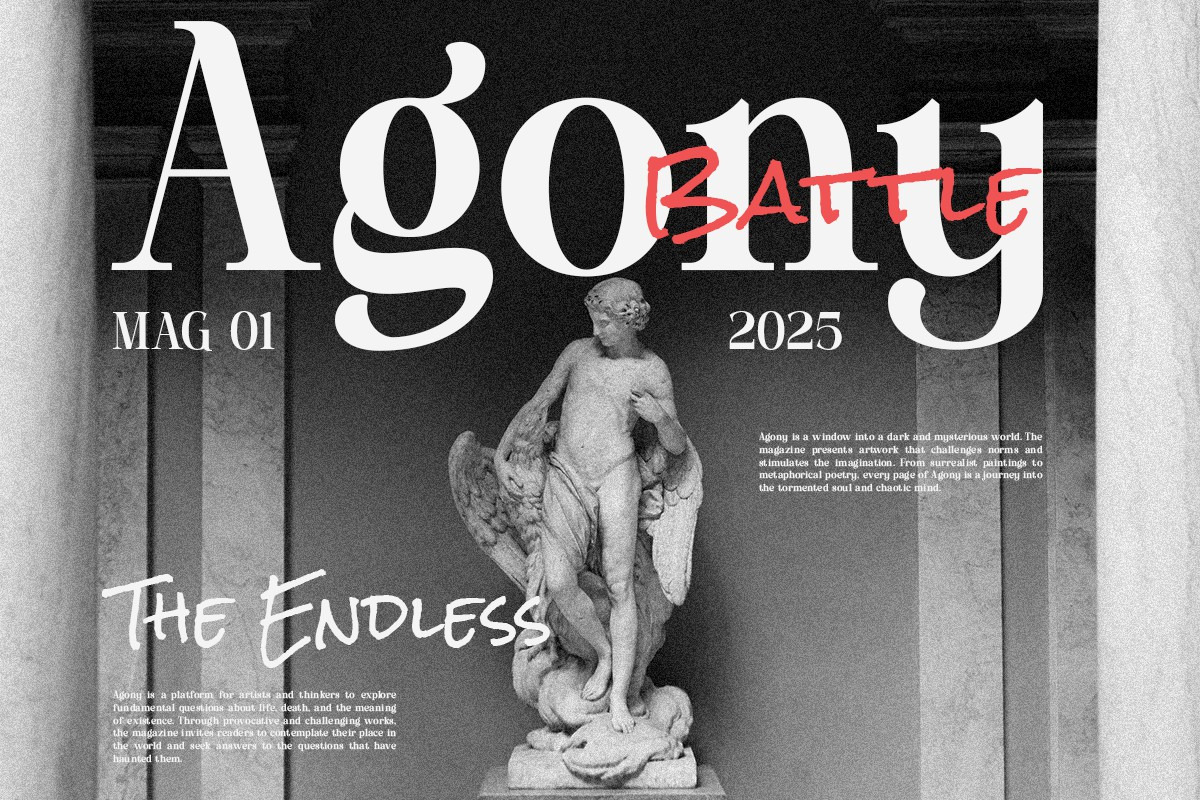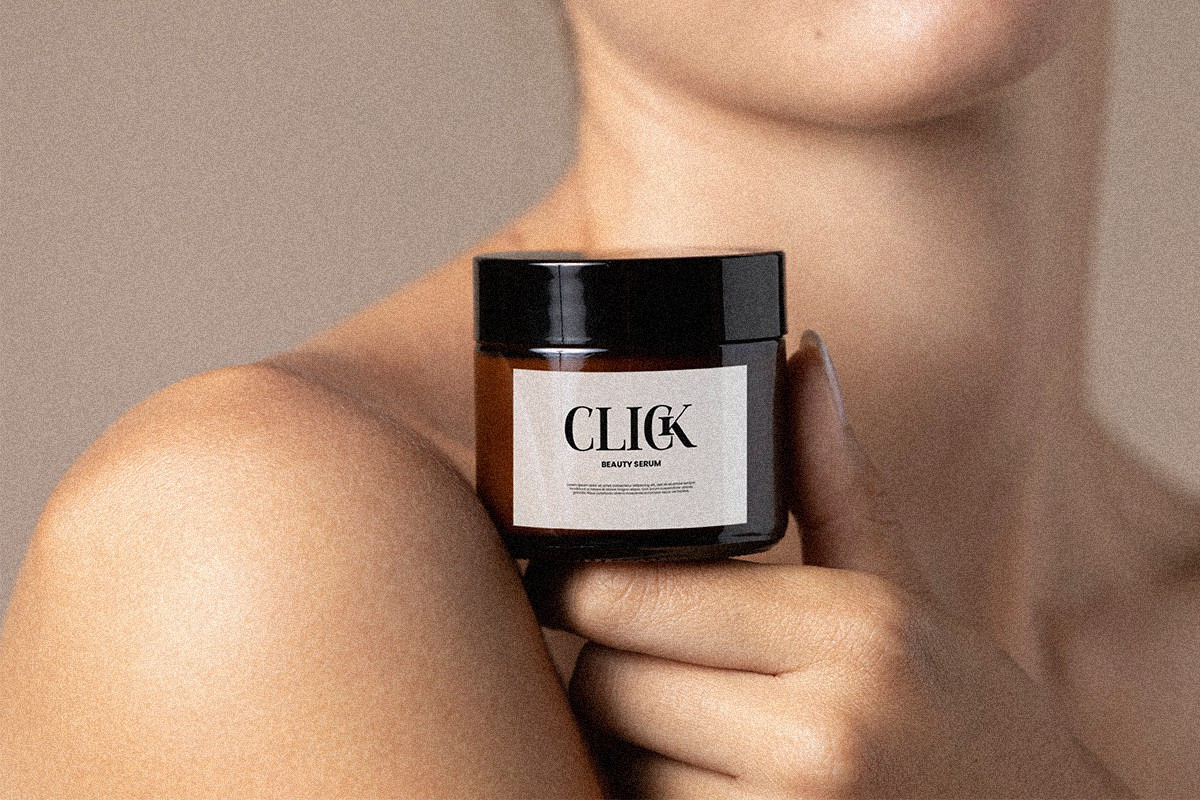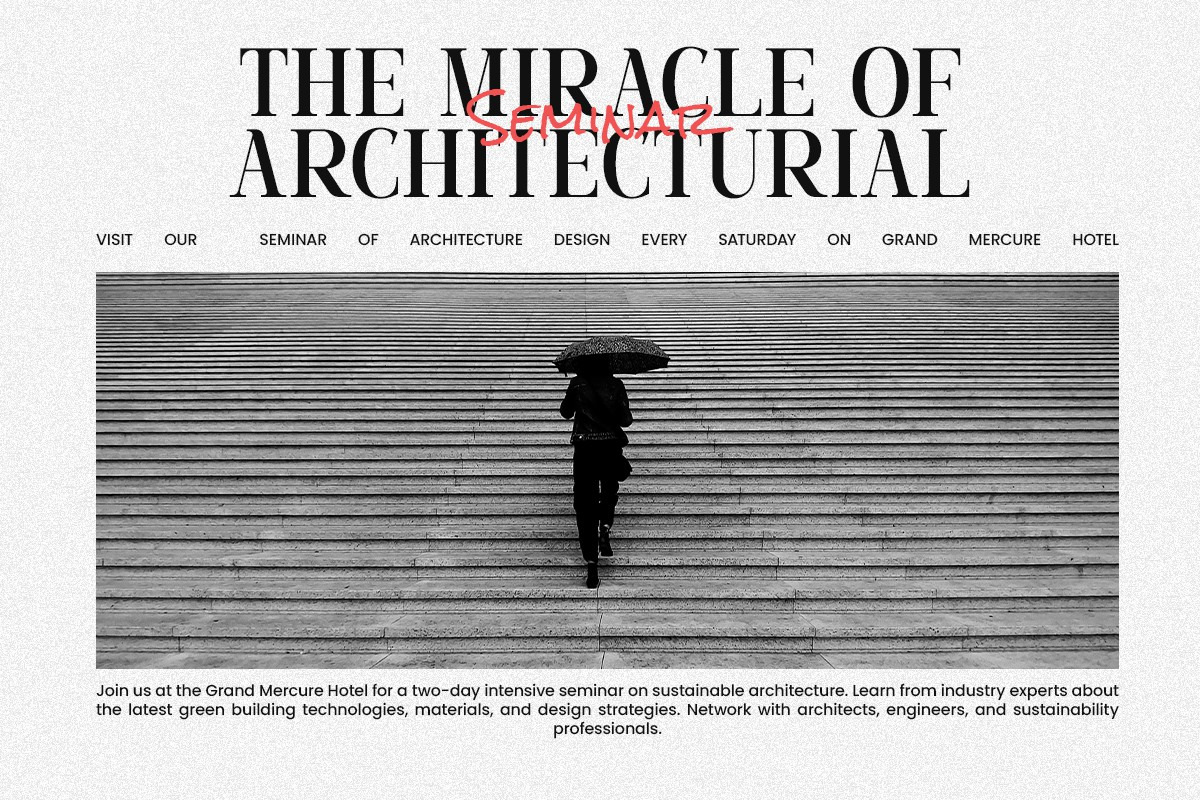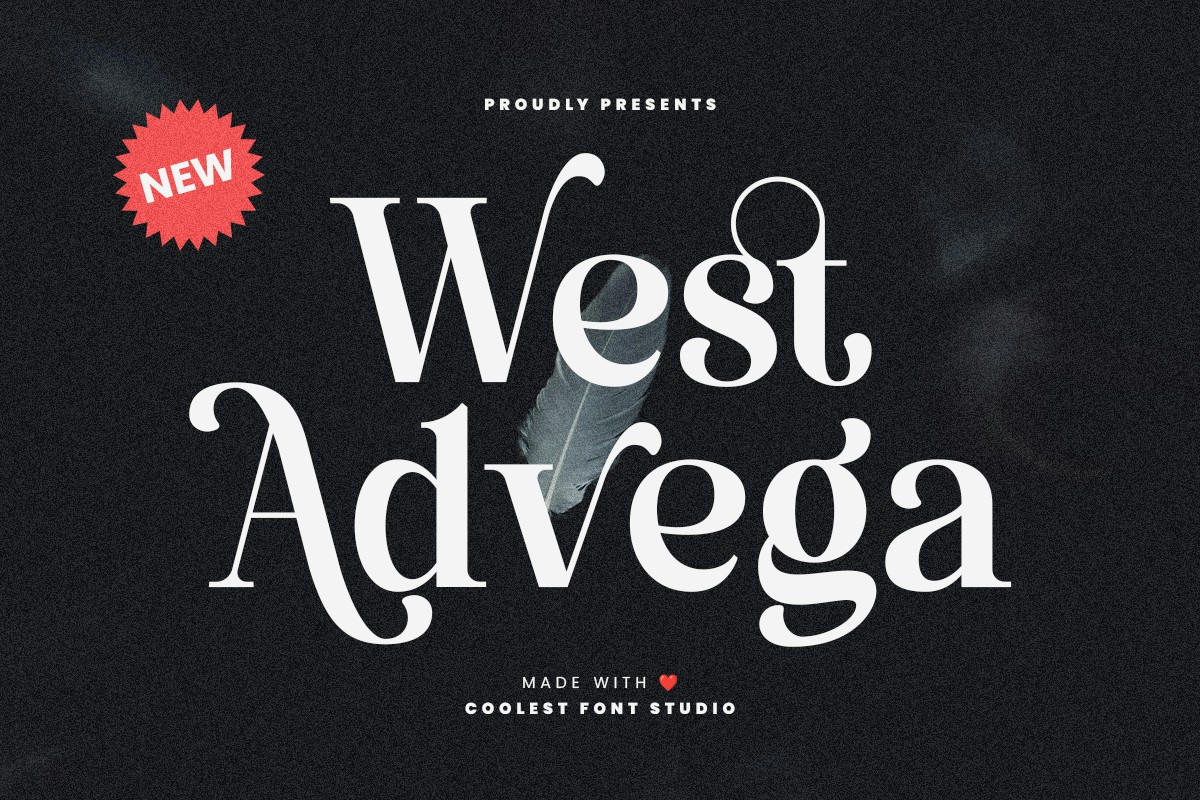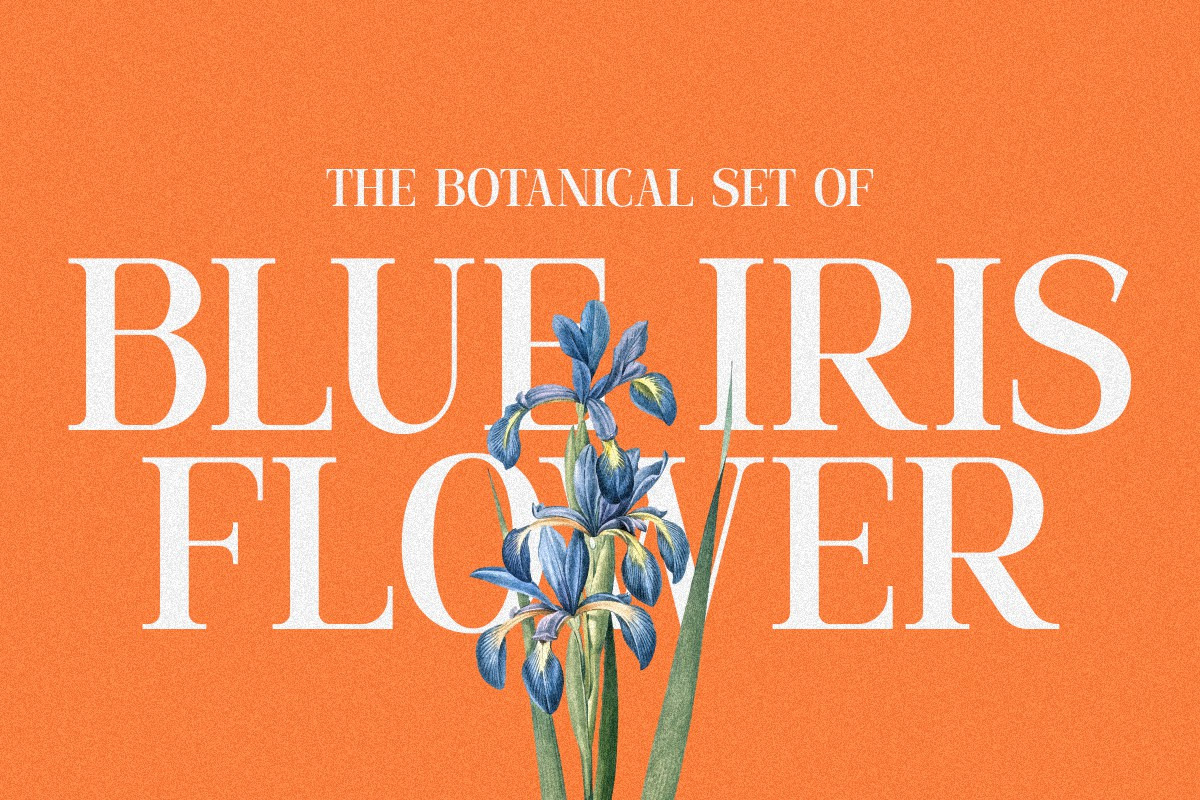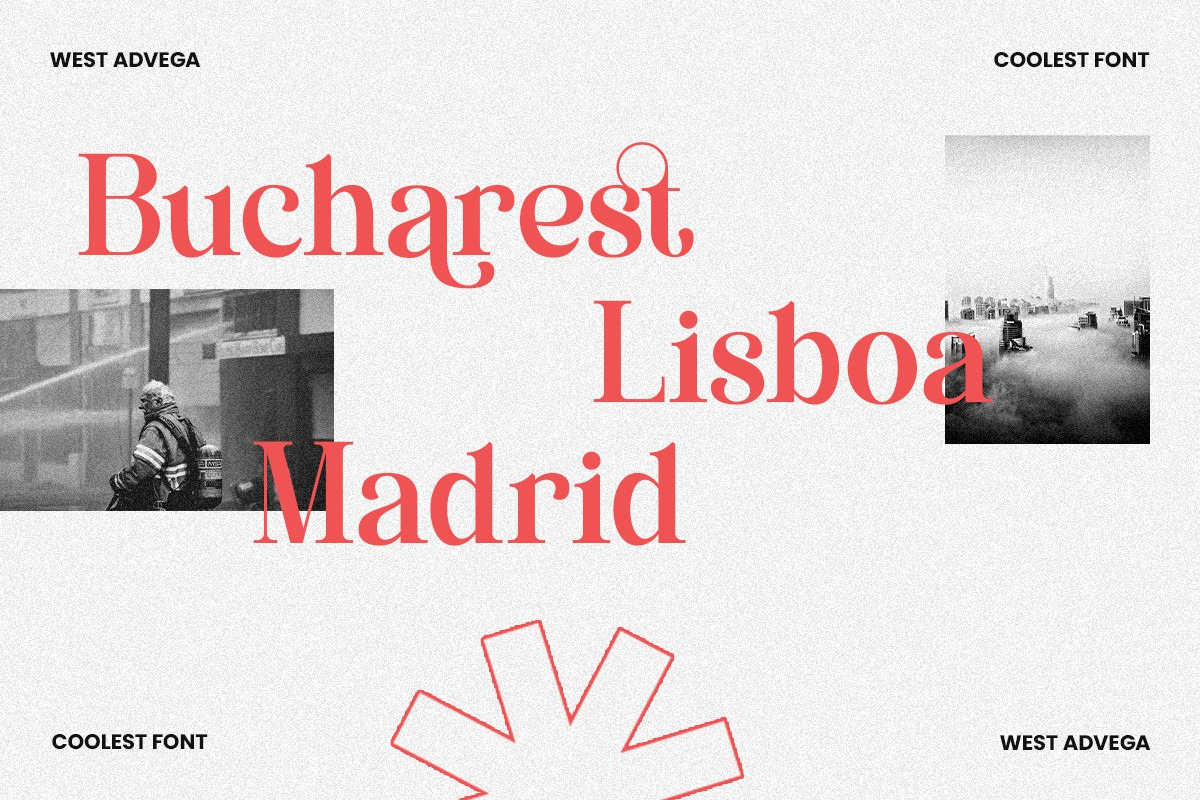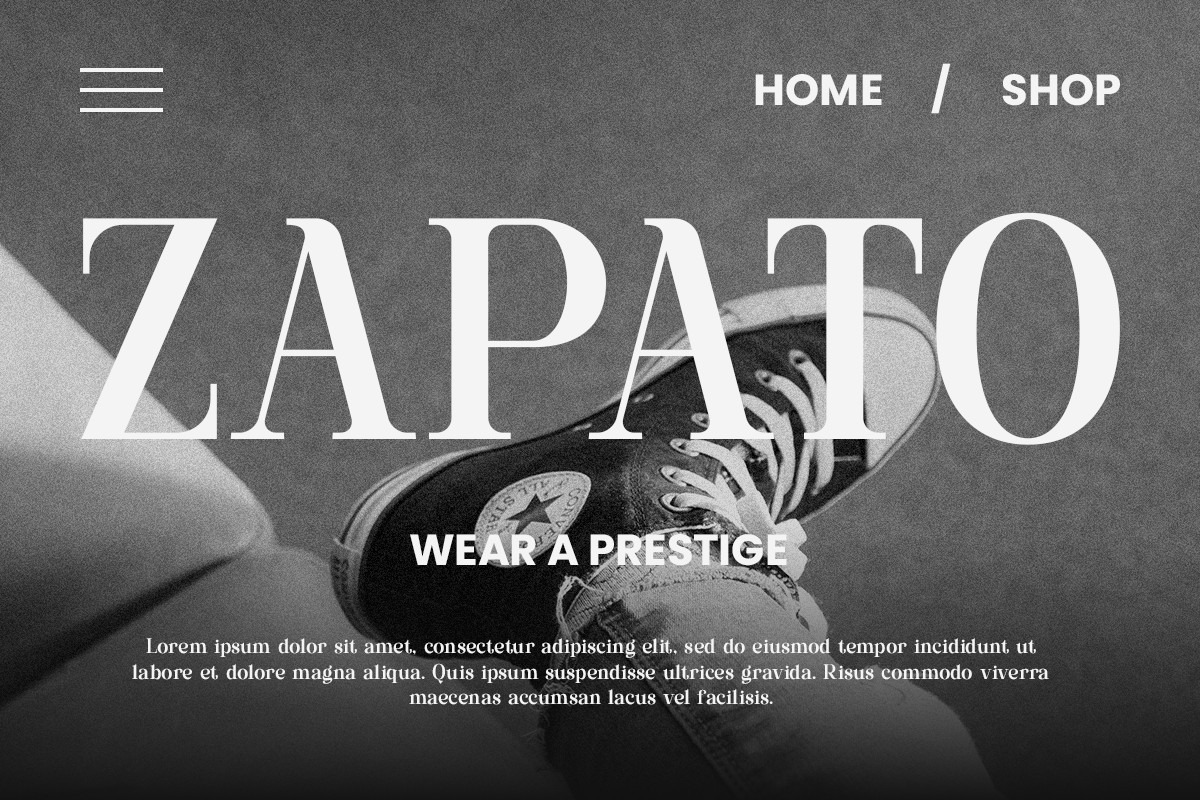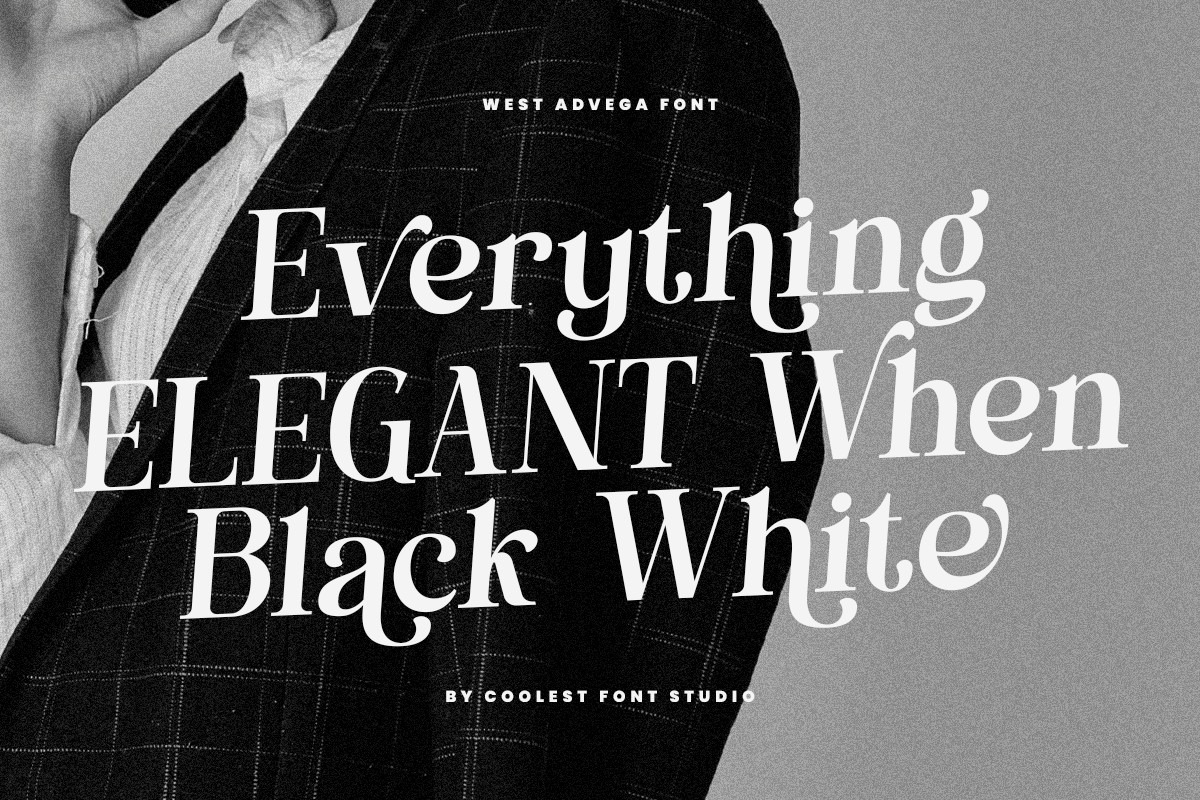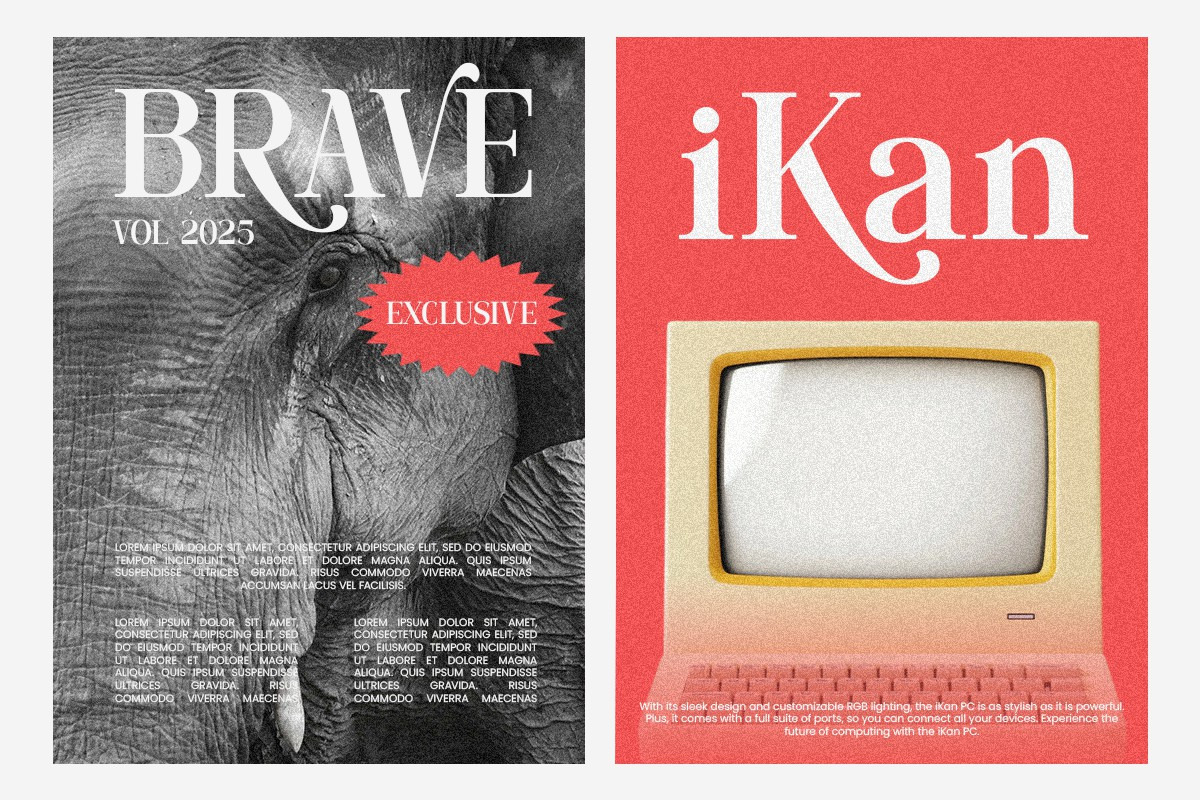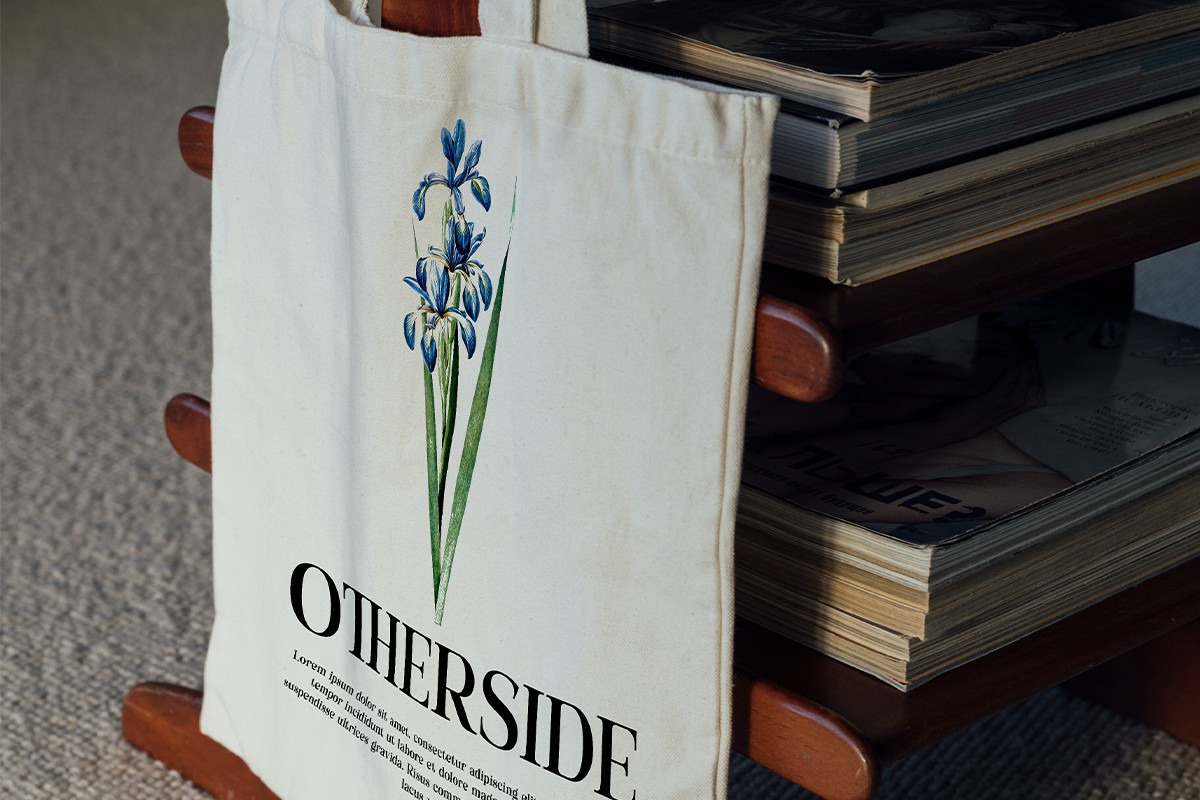
Weest Advega Serif Font
Weest Advega – Serif Font
Weest Advega is a refined serif font designed to bring a modern yet classic touch to your creative projects. With delicate details and well-balanced letterforms, this typeface enhances the aesthetics of any design.
- Versatile Design: Perfect for branding, logo design, wedding invitations, magazines, and social media.
- High Readability: Despite its unique style, Weest Advega ensures clear readability across different sizes.
- Luxury Appeal: Adds a sense of elegance and professionalism to any design.
- Branding & Logos: Build a strong and memorable brand identity.
- Editorial Design: Ideal for eye-catching headlines and magazine layouts.
- Invitations & Cards: Bring sophistication to wedding invites and greeting cards.
- Social Media Graphics: Elevate your posts and stories with beautiful typography.
Enhance your designs with Weest Advega, a serif font that combines elegance and versatility for stunning results.